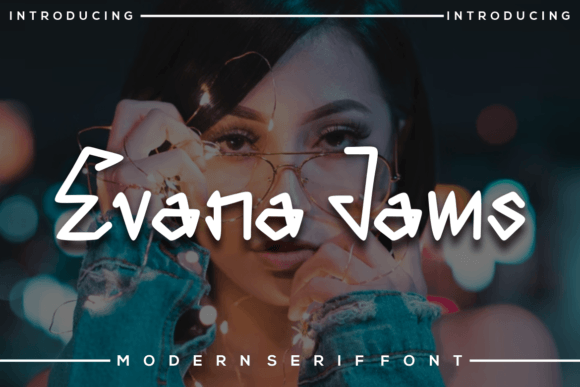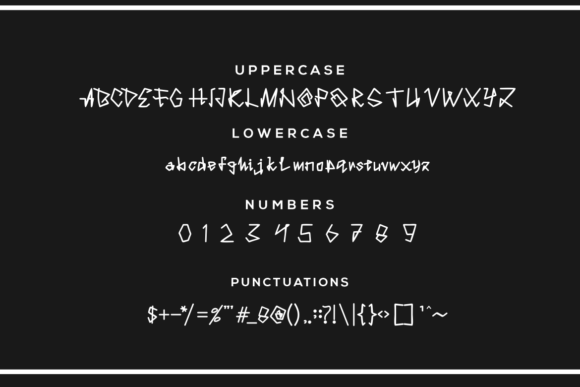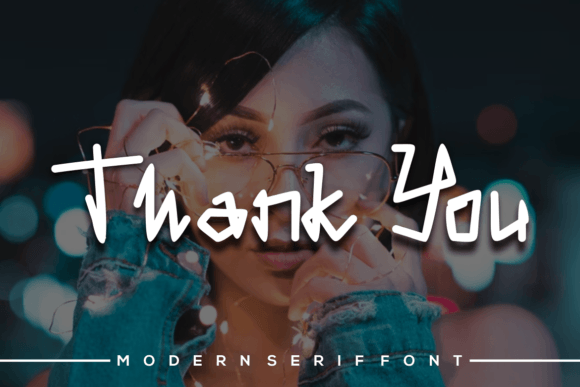
Introduction to Evana Jams Font
Evana Jams is a cool and trendy display font.
Whimsical and a bit quirky, this font will brighten up each of your designs Add it confidently to your projects, and you will love the results.
Key Features of Evana Jams Font
Evana Jams Font offers exceptional quality and versatility, making it a valuable addition to your design toolkit. Whether you’re creating for personal projects or commercial use, Evana Jams Font delivers professional results.